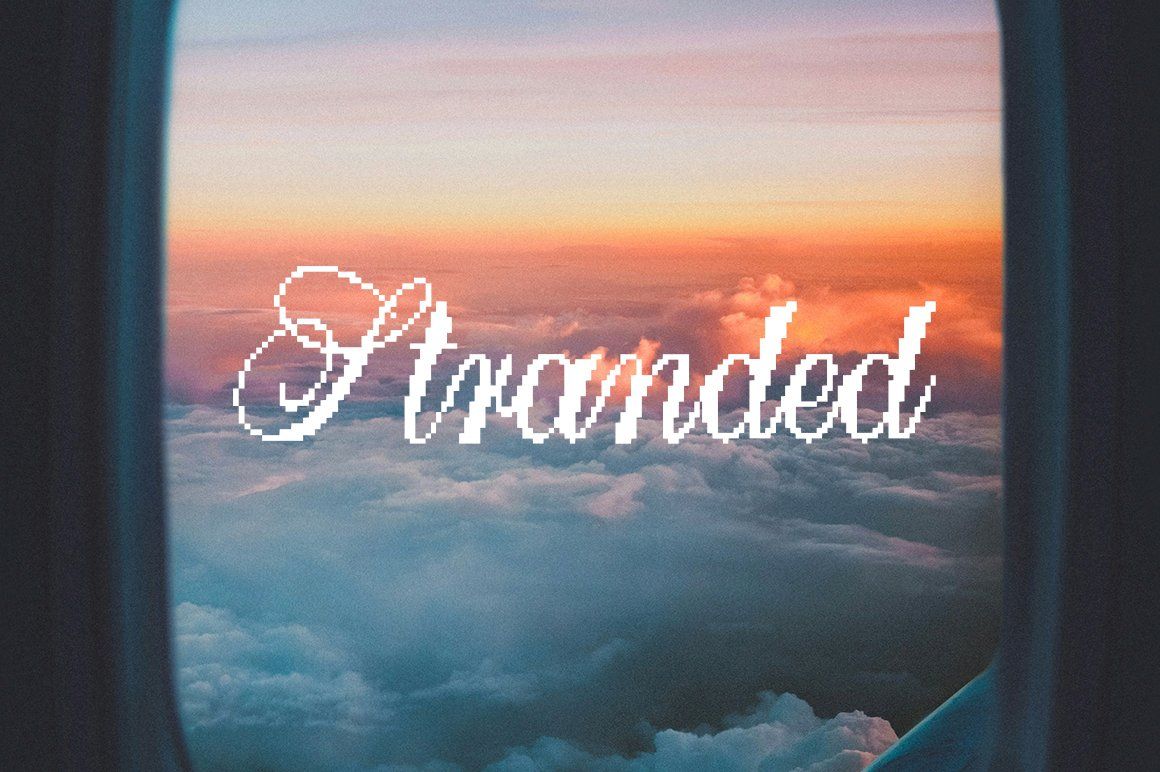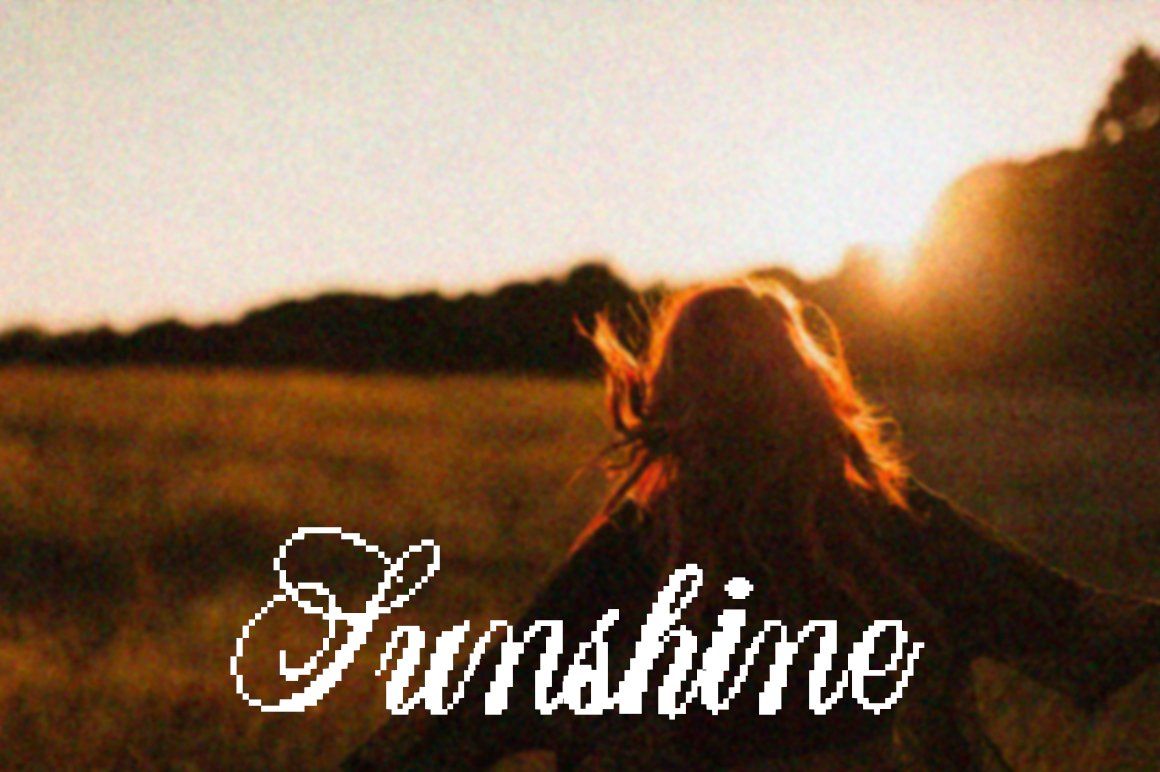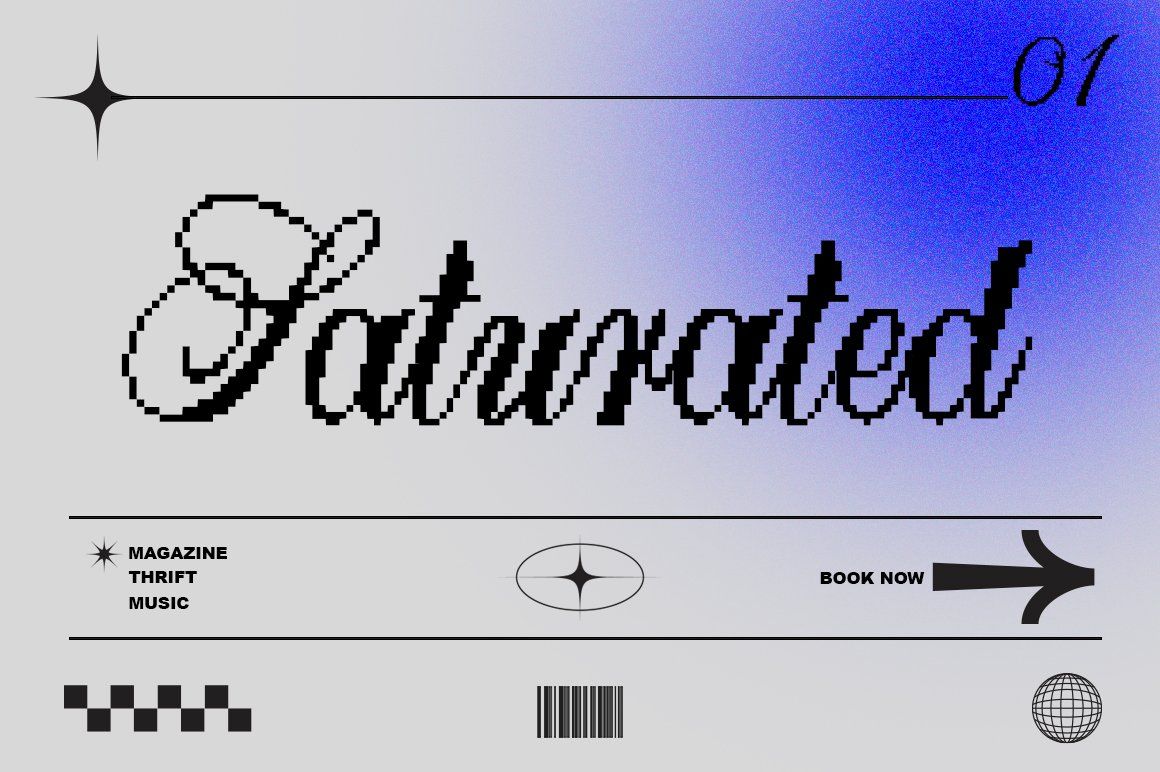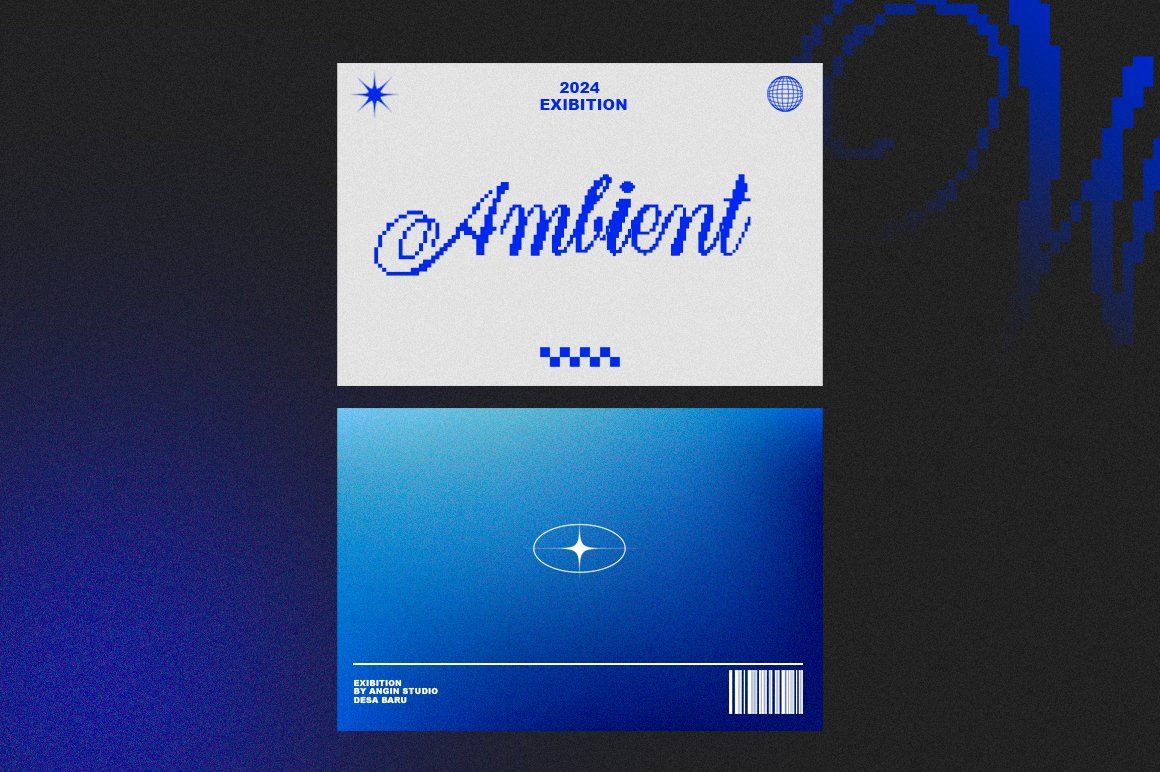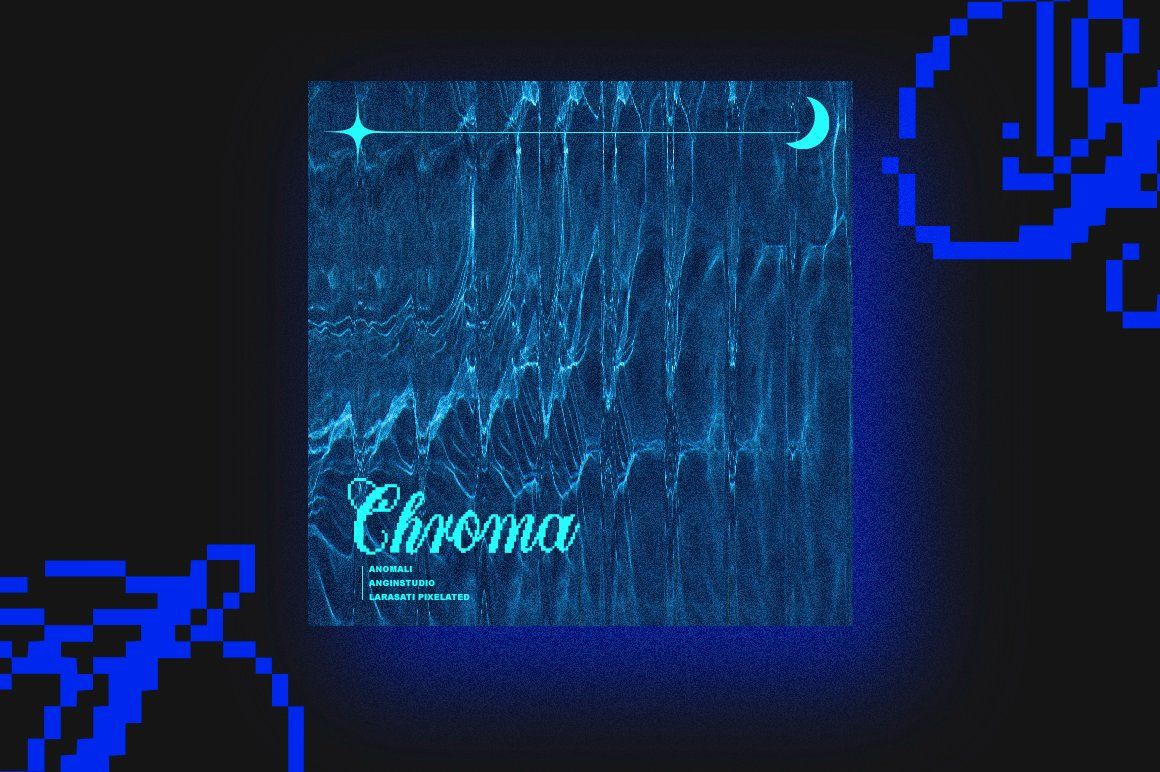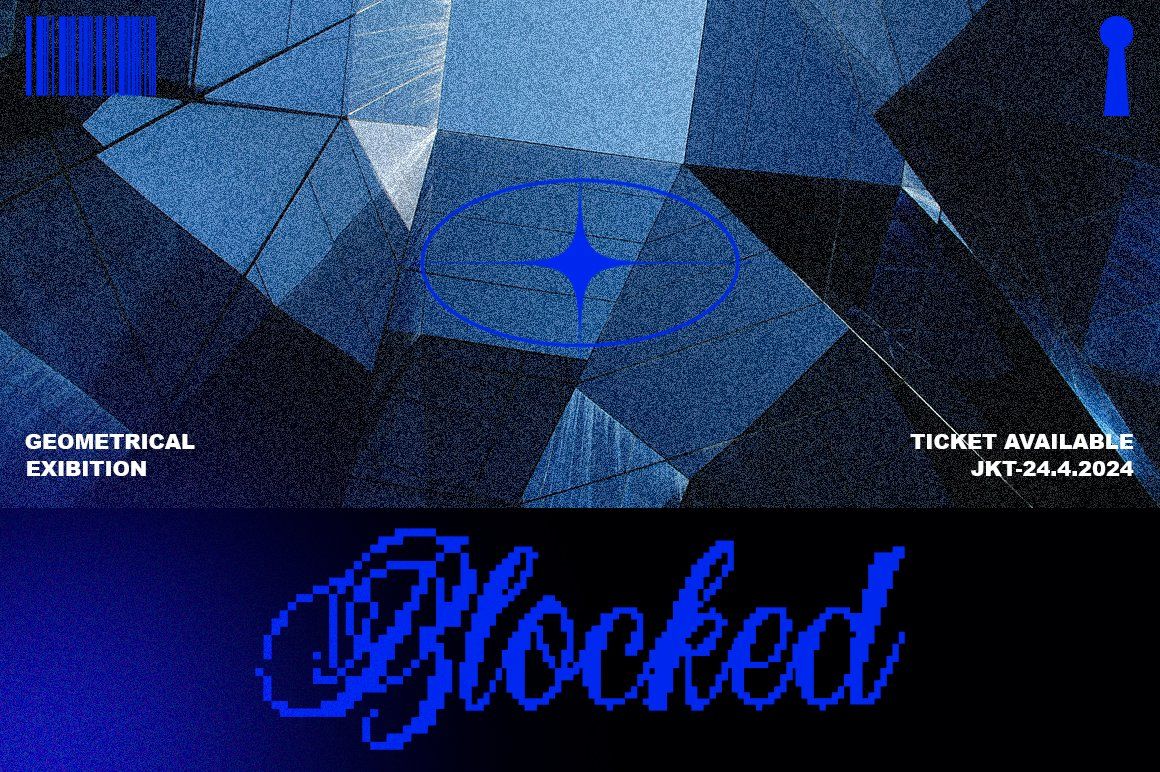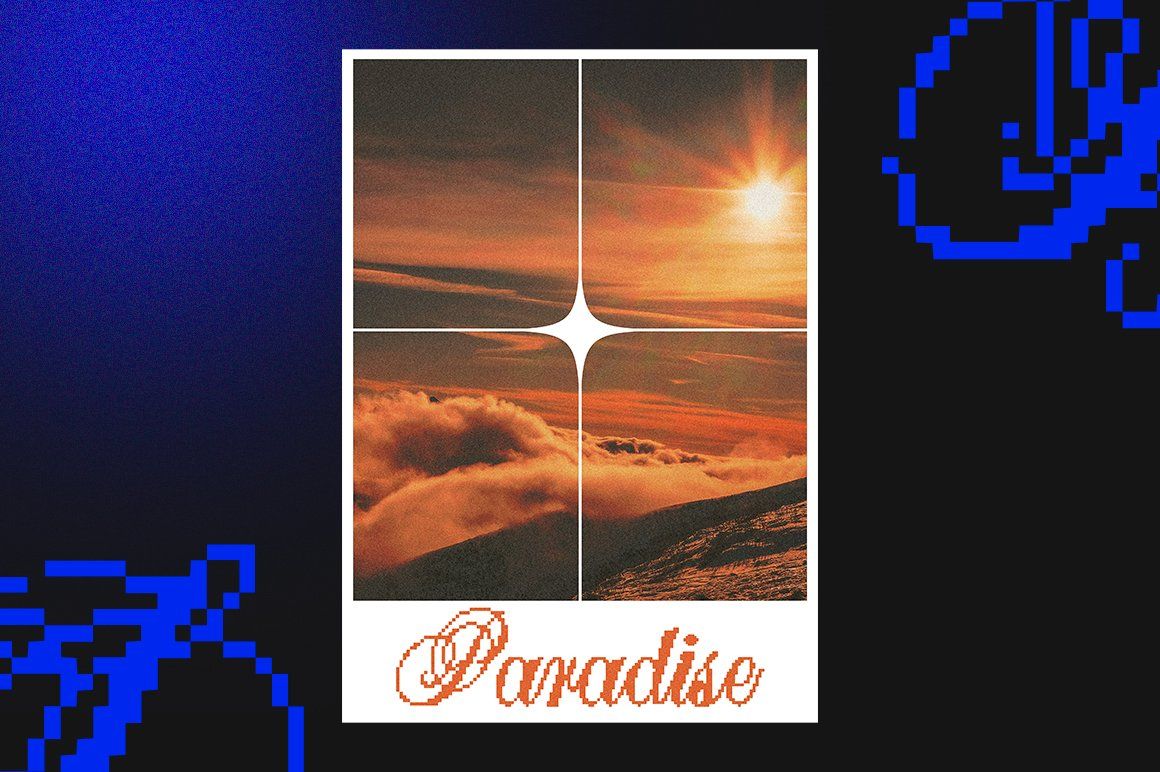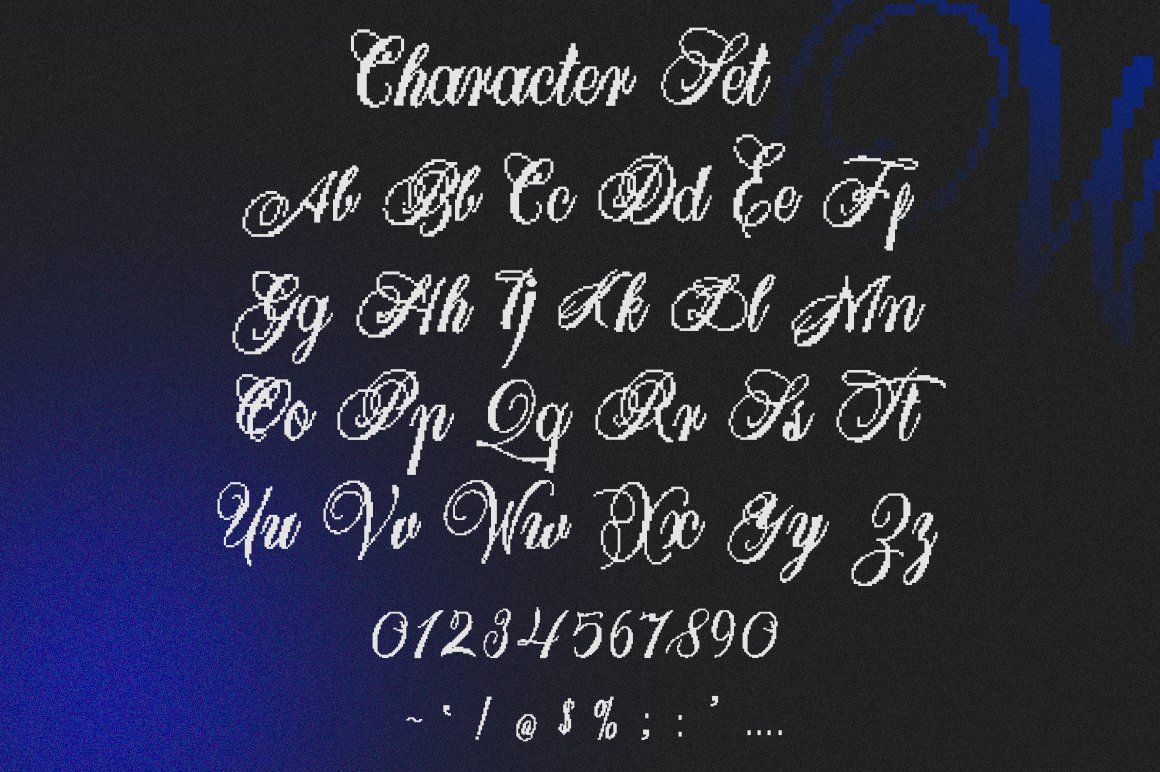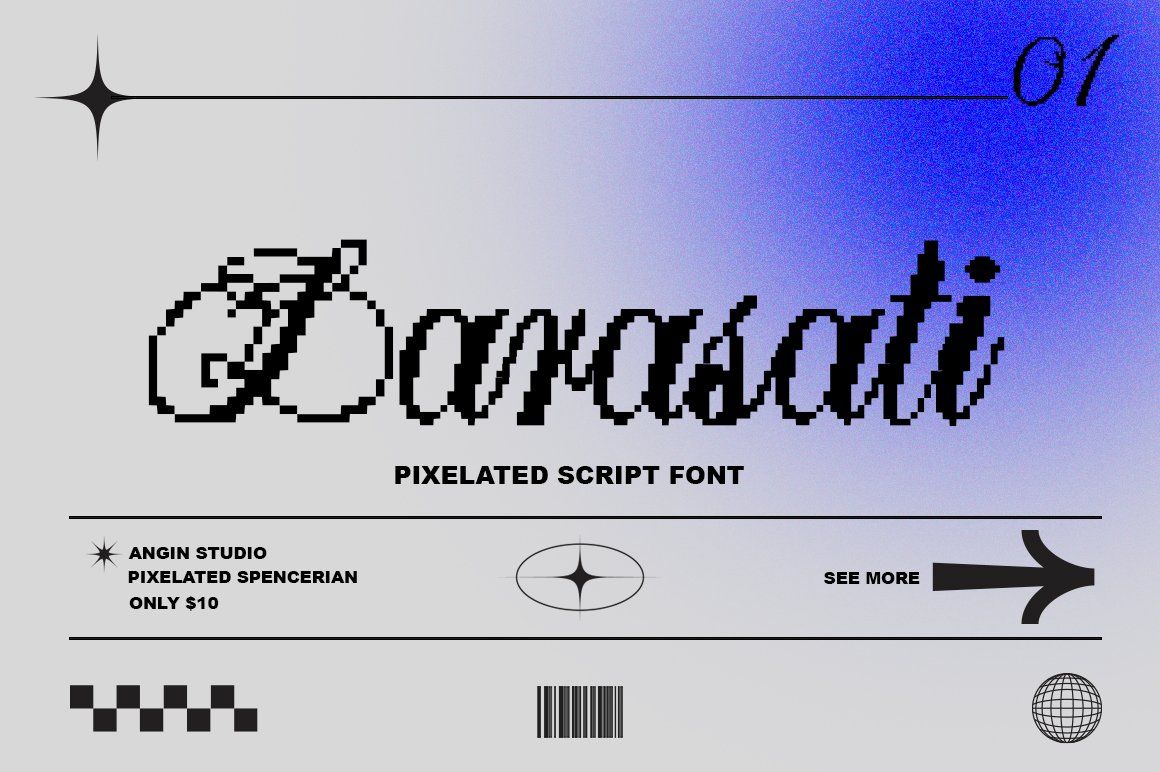
Introducing Larasati Pixelated the Pixelated Spencerian Script Font, a mesmerizing fusion of vintage elegance and modern pixel. Immerse yourself in the charm of Spencerian script, meticulously crafted to exude timeless sophistication, now reimagined with a pixelated twist that adds a unique edge to your designs.
Each character is a masterpiece in itself, meticulously designed to capture the essence of traditional calligraphy while embracing the digital era. The precision of the pixelation adds a touch of whimsy, making every stroke a visual delight.
But that’s not all, this font goes above and beyond by including an exclusive Element Aesthetic Pack, elevating your creative arsenal to new heights. From ornate flourishes to delicate accents, this pack offers an array of design elements that seamlessly integrate with the font, allowing you to effortlessly create stunning compositions that captivate and inspire.
Whether you’re designing invitations, branding materials, or digital artwork, the Pixelated Spencerian Script Font with its Element Aesthetic Pack is your ultimate tool for crafting visuals that stand out in a sea of mediocrity. Embrace the beauty of imperfection and unleash your creativity like never before. Elevate your designs with this one-of-a-kind font today.